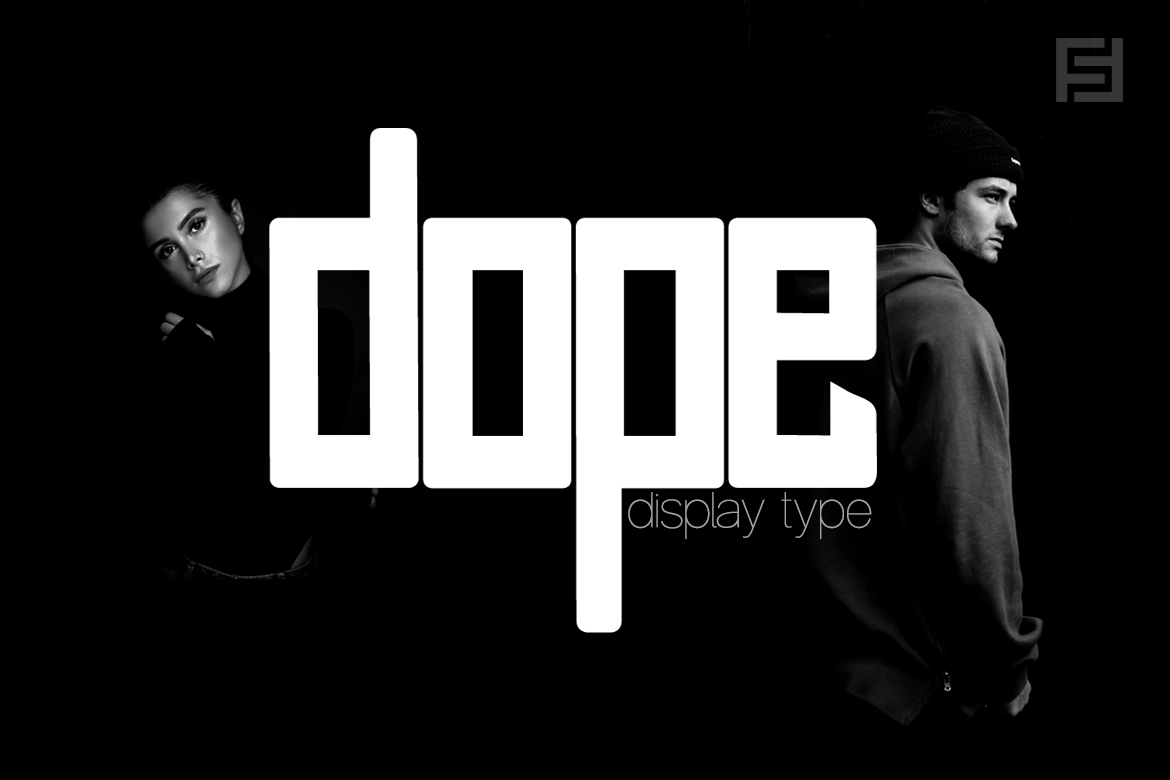
Dope is a unique typeface perfect for headlines, big text, branding, logotypes & display usage. This font can be an excellent choice for creating outstanding logos, promotional content, and marketing graphics that can bring uniqueness and freshness at its level best.
The typeface will be perfect for creating unique monograms, logos, and identities with these combinations. Please see the examples shown above to get an idea of the capability of this typeface.
The typeface comes with Extended Latin character sets including Western European, Central European, and South-Eastern European character sets (total of 281 glyphs).